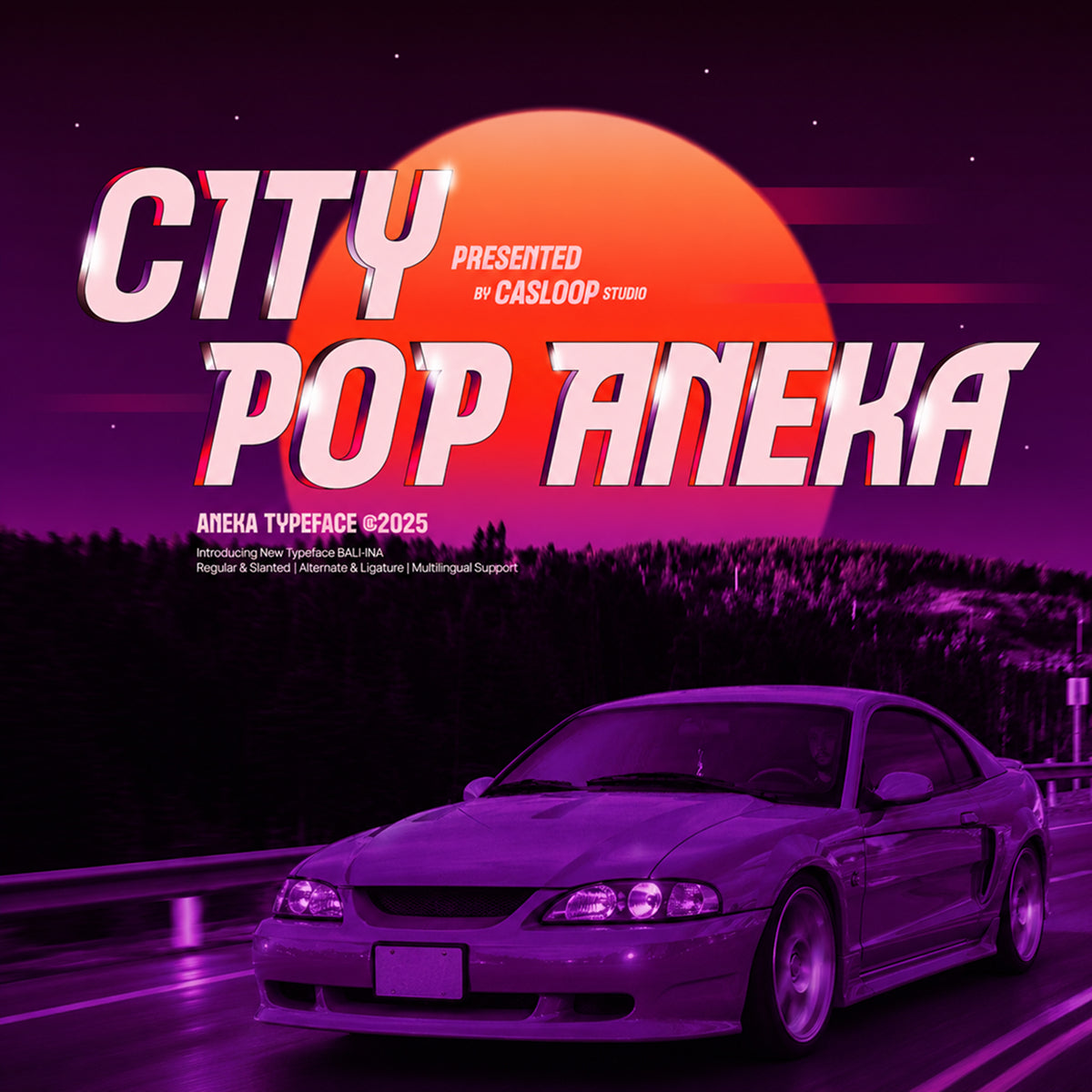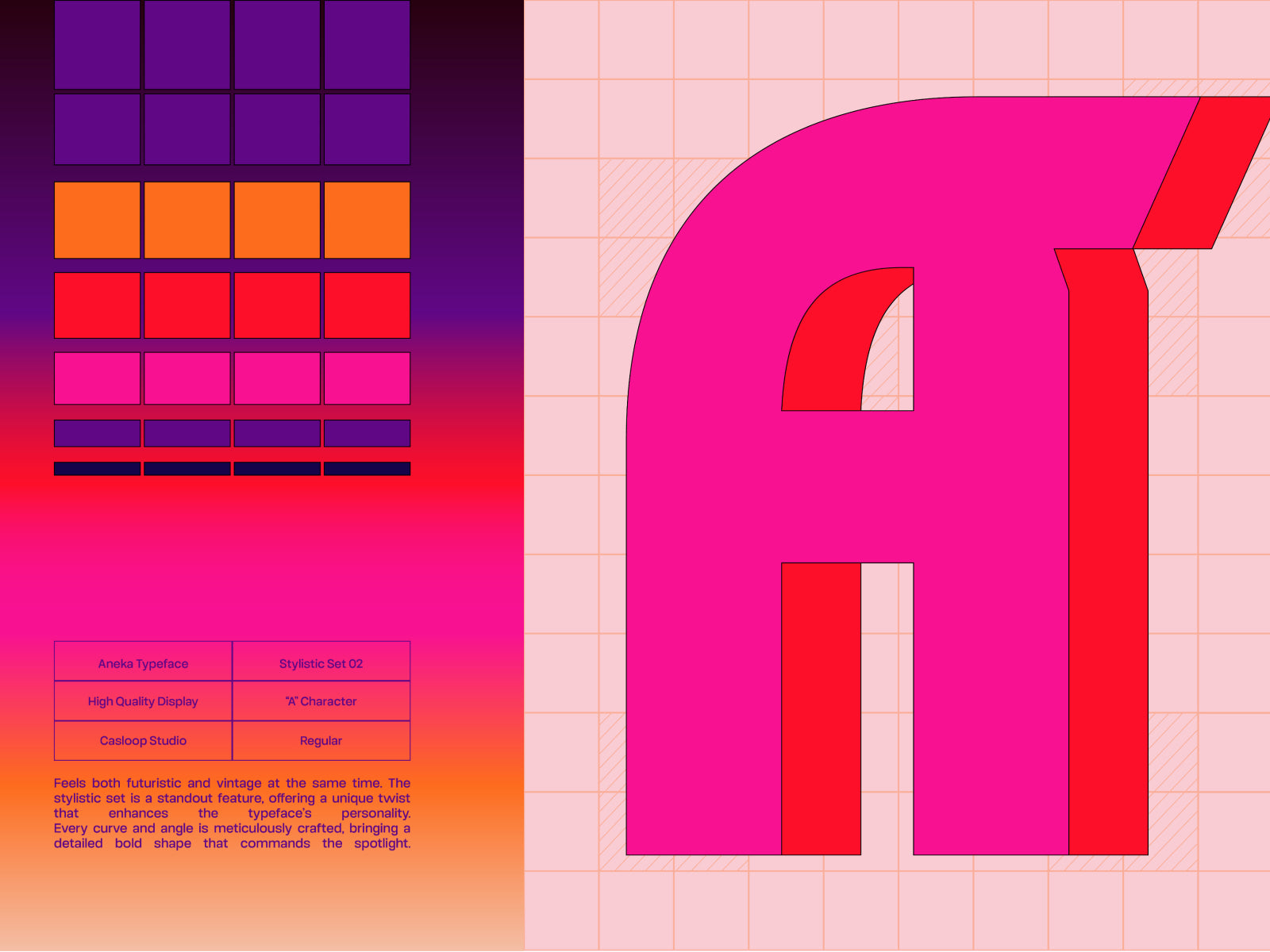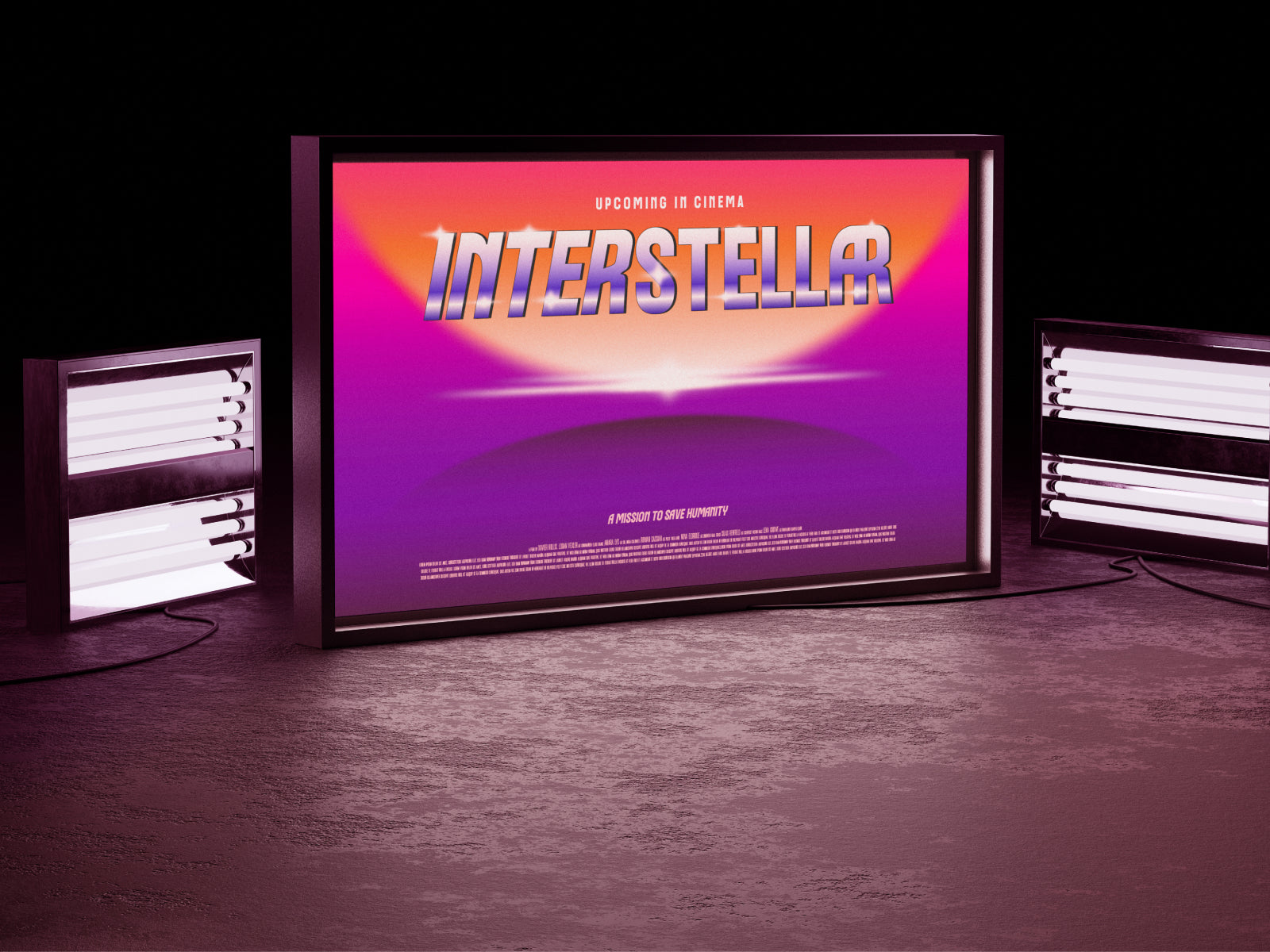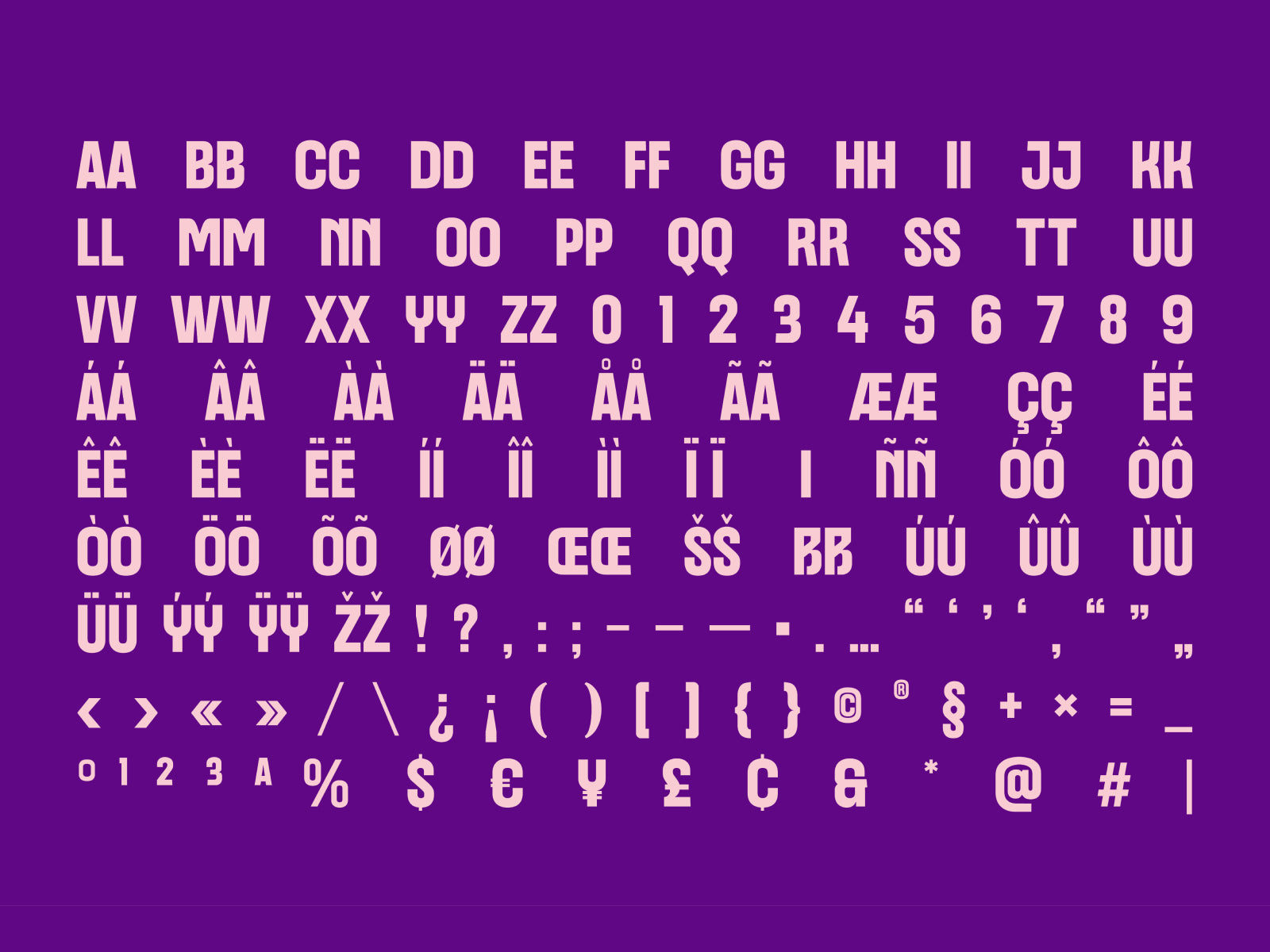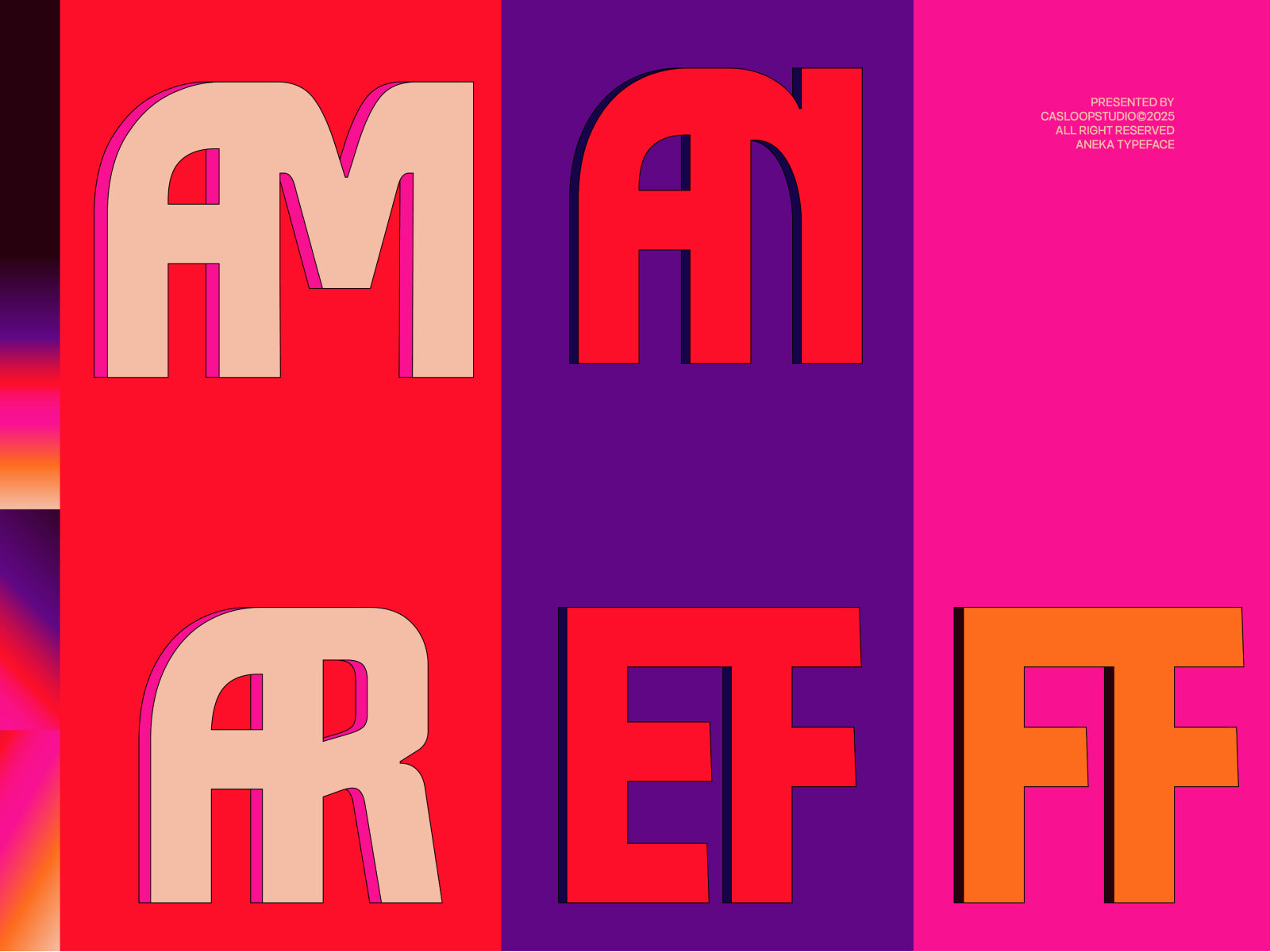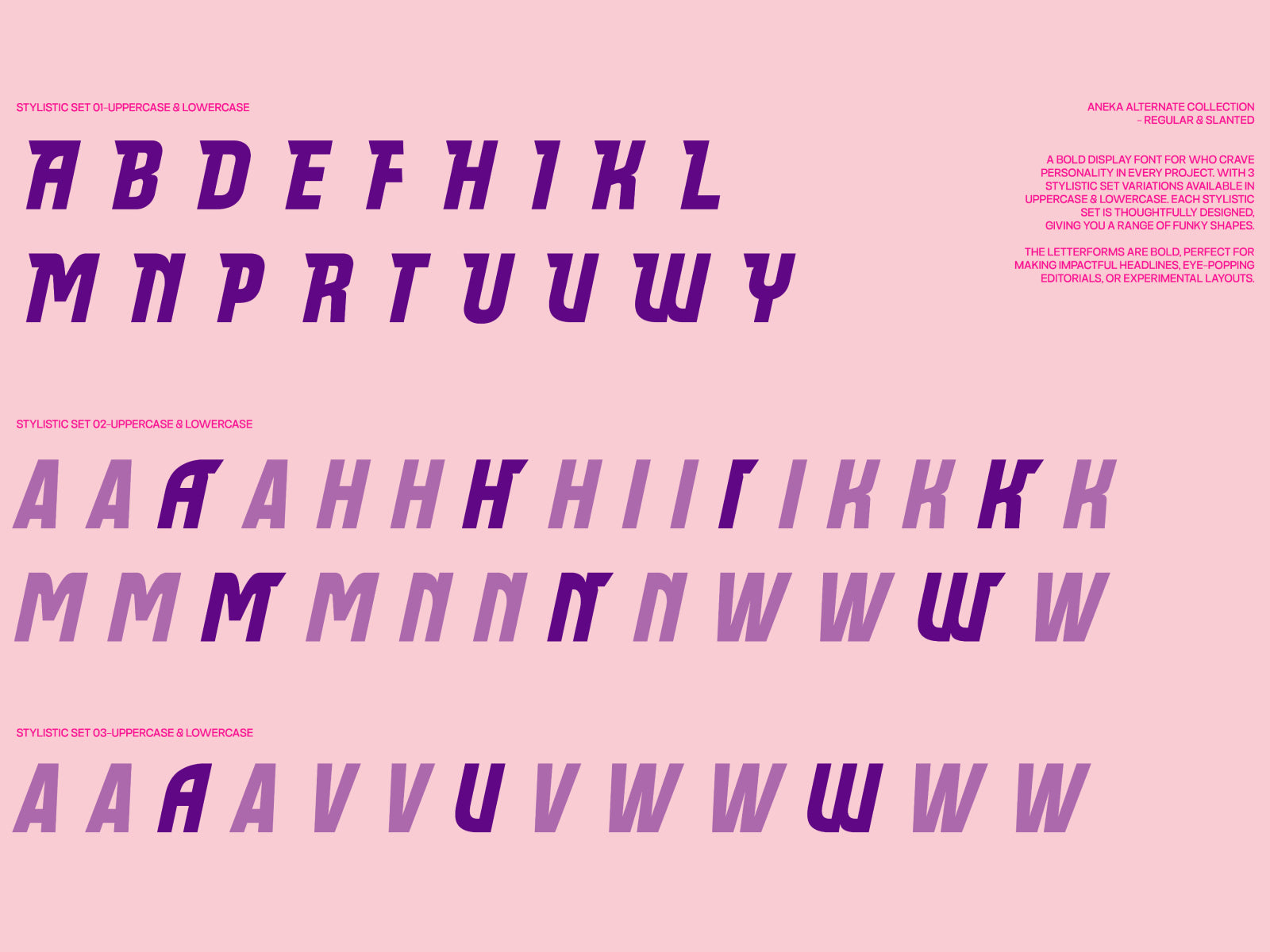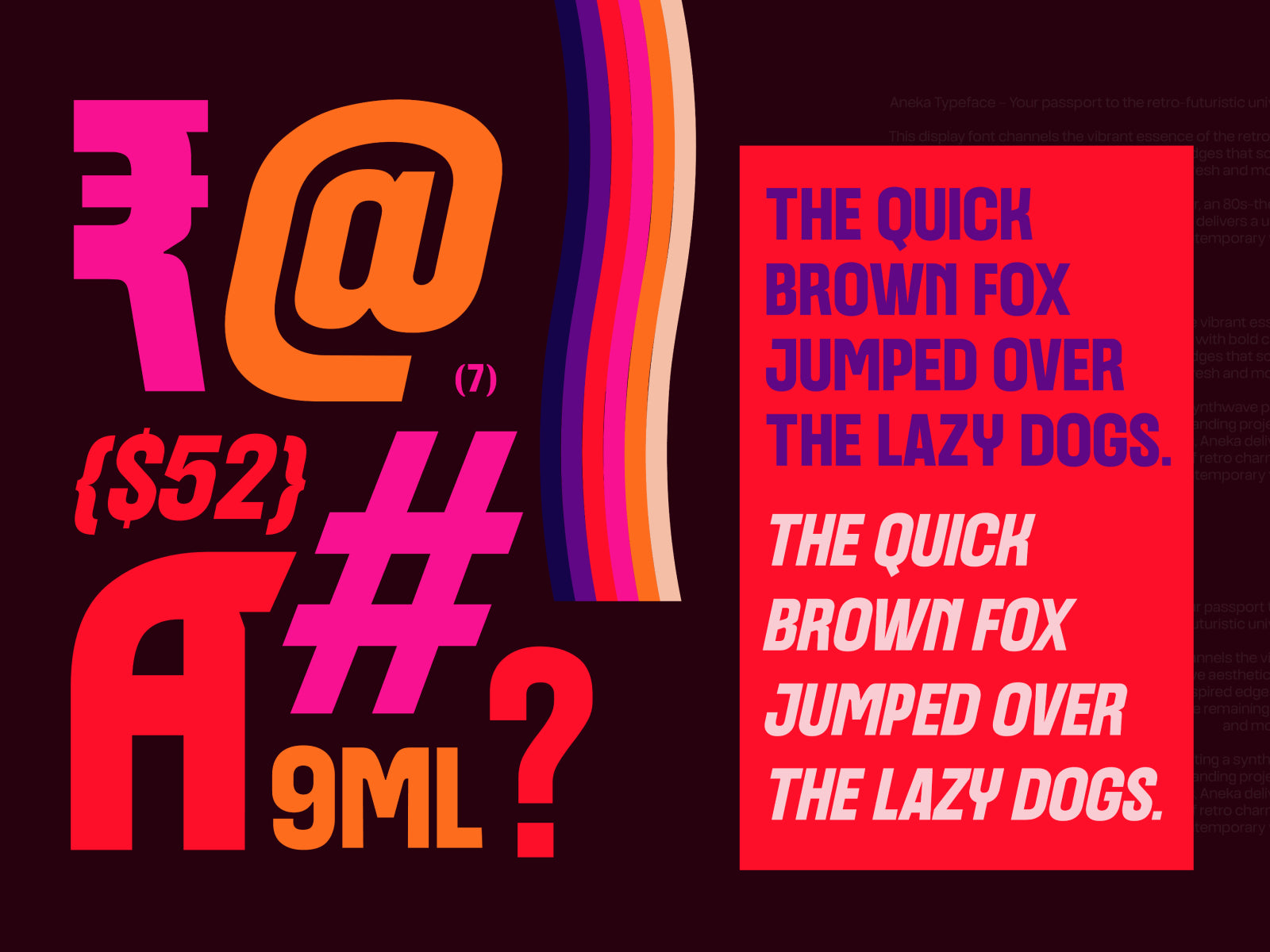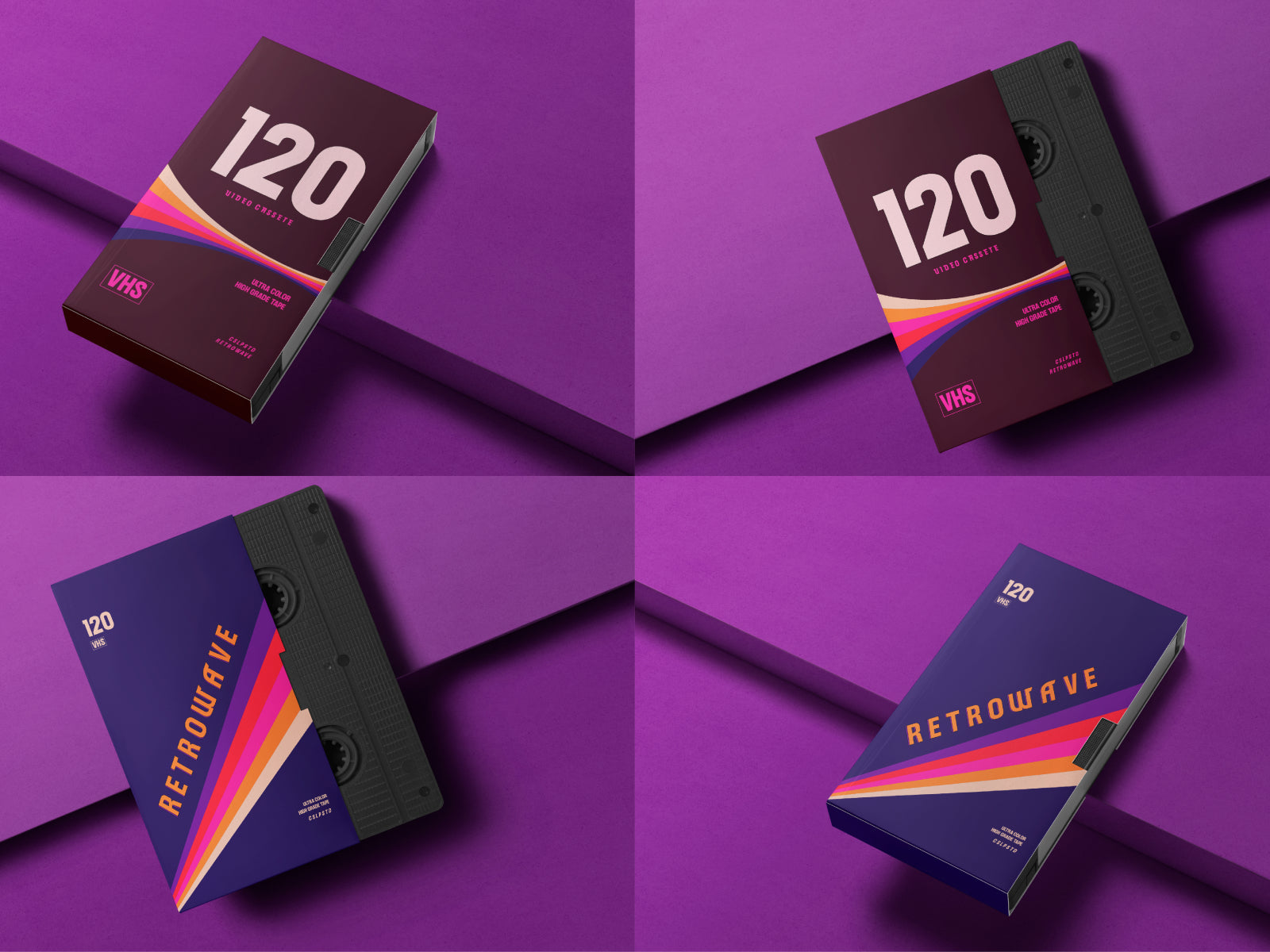
Aneka - City Pop Retro Font
Aneka Typeface — A Bold Retro-Futuristic Display Font Aneka is a high-impact display typeface designed to transport your projects into a retro-futuristic universe. Perfect for standout branding, nostalgic posters, and captivating editorial layouts, Aneka blends bold geometric shapes with a modern edge. This typeface radiates personality and charm, making it ideal for creatives who want to break the mold and make a statement. a poster with bold visuals, crafting branding with character, or adding a retro twist to your work, Bekix is built for creators who want to leave an impression. It’s versatile, vibrant, and ready to elevate your next project.
Features of Aneka Typeface -Bold Letterforms: Thick, confident shapes that dominate the design space, perfect for making an impact. -Stylistic Alternates & Ligatures: Custom alternates and playful ligatures let you experiment and add flair to your work. -Retro-Futuristic Aesthetic: A harmonious blend of vintage 80s influences and sleek, modern design. Multilingual Support: Extensive language coverage with accented characters, so your designs can speak to a global audience. -High Versatility: Perfect for everything from posters to packaging, logos, and editorial layouts. File Includes:
Aneka - City Pop Retro Font is a bold retro-futuristic display typeface featuring thick letterforms, stylistic alternates, and ligatures. It includes multiple file formats (.otf, .ttf, .woff, .woff2) and offers extensive multilingual support, making it versatile for various design projects.